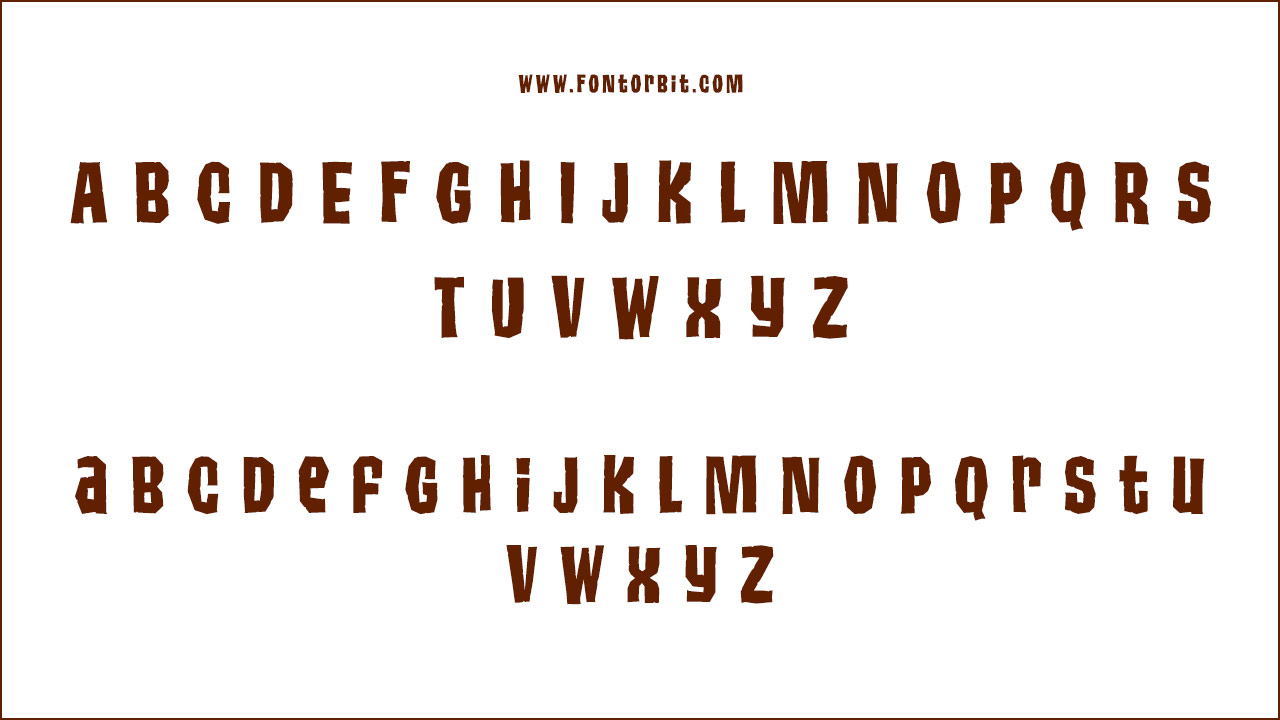
The Tiki Island Font Family Includes
Tiki Island Font’s design features a rich array of graphics and glyphs, making it a versatile choice for various creative projects. The font family includes a single style that evoke a lively and adventurous vibe.
Tiki Island Font’s distinctive style is perfect for projects that require a bold and engaging visual presence. Its playful and exotic appearance is ideal for a range of creative and promotional applications.
You’ll find Tiki Island Font in various design contexts where a lively and engaging typeface is needed. Its unique graphics and glyphs make it a popular choice for designs that aim to capture an adventurous and playful spirit.
Tiki Island Font brings a sense of fun and adventure to any design with its lively and tropical style. While it may not replicate any specific historical font, it effectively captures a vibrant and engaging aesthetic. Pair Tiki Island Font with clean, modern design elements to create a dynamic and eye-catching contrast.
3.What Fonts Are Similar To Tiki Island?
Fonts similar to Tiki Island include Tropical, Tiki Tropic, and Islander. These share playful, tropical themes and often feature exotic, bold designs.
4.What Fonts Are Similar To Tiki Type Island?
Similar fonts include Tiki Tropical, Island Time, and Tiki Torch. They offer a similar tropical and playful aesthetic.
5.What Type Of Font Is Tiki Island Font?
Tiki Island Font is a display typeface known for its exotic, playful style and bold, decorative elements suitable for tropical-themed designs.